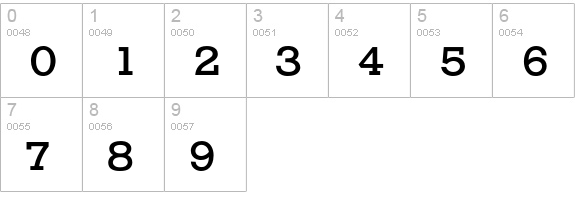
Stymie BQ Bold is a strong, high-contrast variant in the Stymie typeface family \xE2\x80\x94 well suited to headlines, attention-grabbing titles, and strong calls-to-action.
Stymie BQ Bold font is a bold and impactful typeface that exudes strength and modernity. With its clean lines and sturdy design, this font is perfect for making a bold statement in your projects. Whether you are designing a poster, logo, or any other creative work, Stymie BQ Bold will help your message stand out with its striking appearance. The best part is that Stymie BQ Bold font is available for free download at FontsMarket.com. You can easily access this powerful font to enhance your designs and make a lasting impression on your audience. Don't miss this opportunity to add Stymie BQ Bold to your font collection and take your projects to the next level.